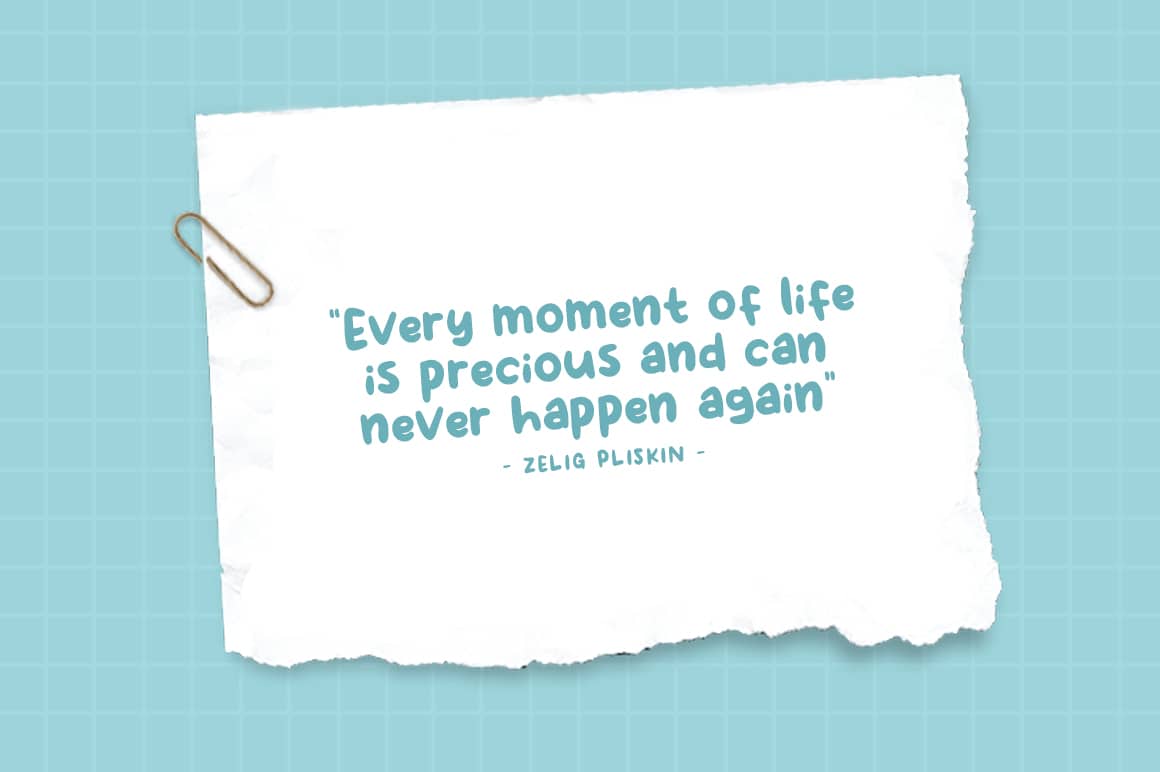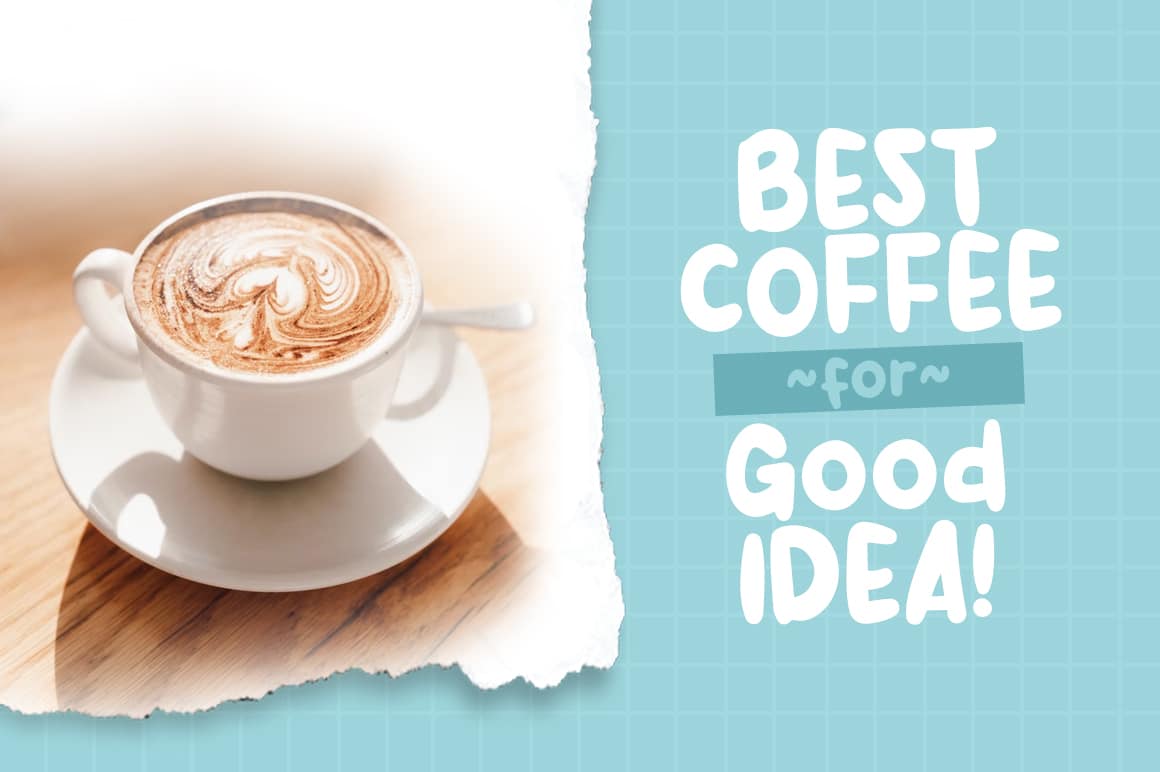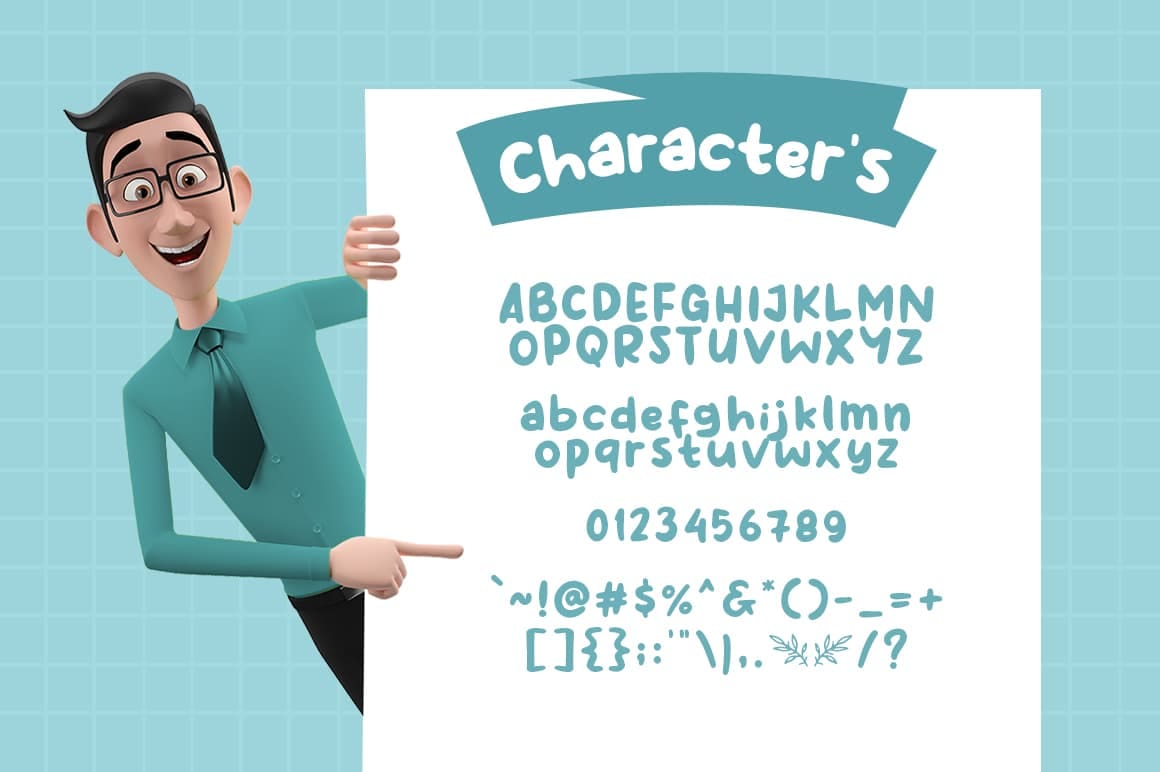
Kimbab Font
Kimbab is a modern and fancy Display Font perfect for posters, logos, magazines, book covers, banners, and many more! Get this amazing freebie, and use it to create lovely designs!